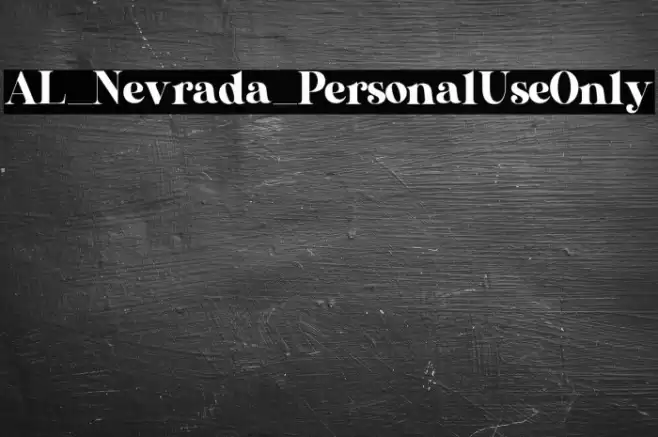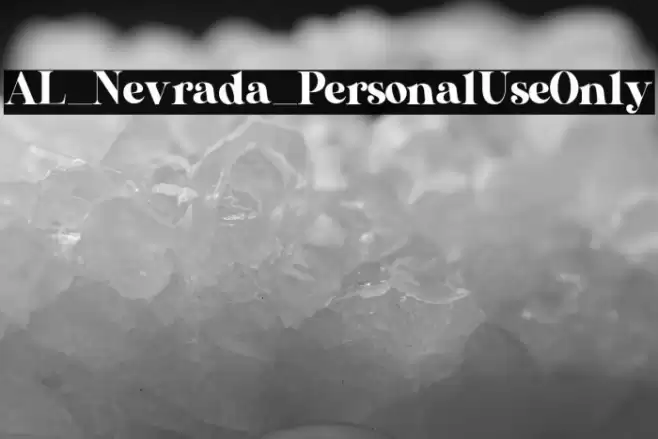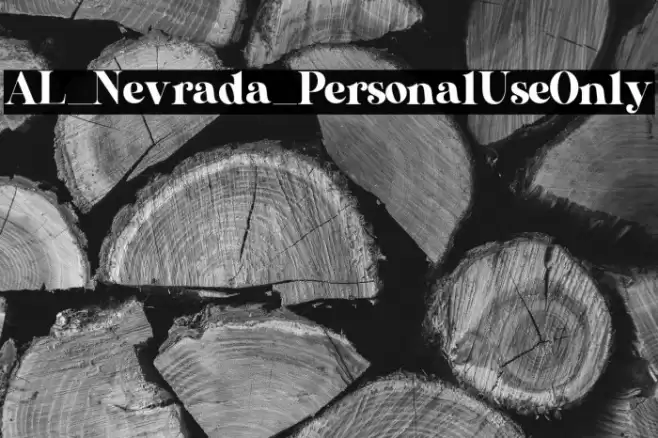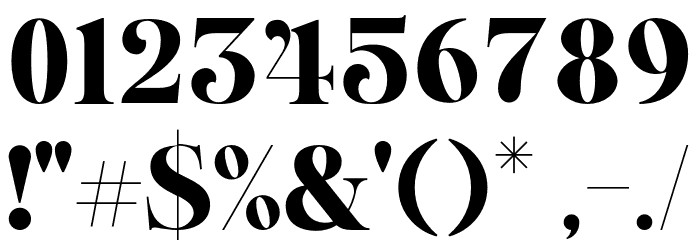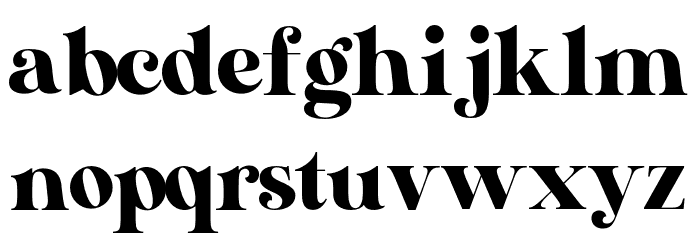
AL_Nevrada_PersonalUseOnly Font
AL_Nevrada_PersonalUseOnly Description
This font features a bold and dramatic serif style with high contrast between thick and thin strokes, giving it a striking and elegant appearance. The uppercase letters are characterized by sharp, angular serifs, while the lowercase letters maintain a consistent flow with rounded edges. The numerals are bold and easily readable, matching the overall aesthetic. Special characters are designed with the same attention to detail, ensuring a cohesive look across all glyphs. This font is ideal for making a strong visual impact.
A bold, high-contrast serif font with dramatic serifs and elegant style from Uncategorized fonts.
- Proposed Projects: Ideal for use in branding, headlines, posters, and editorial design where a strong, elegant presence is desired.
- Overall Style: Classic
- Use Case: Headlines, Logos, Editorial design